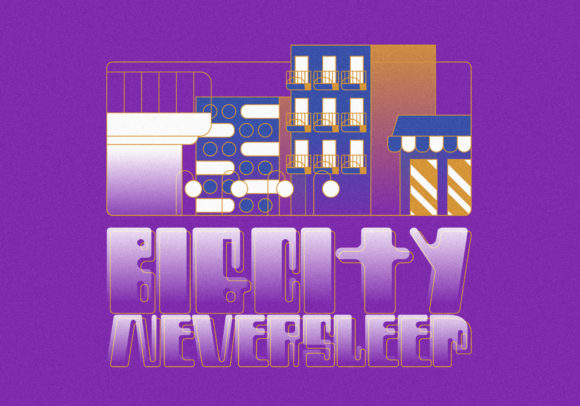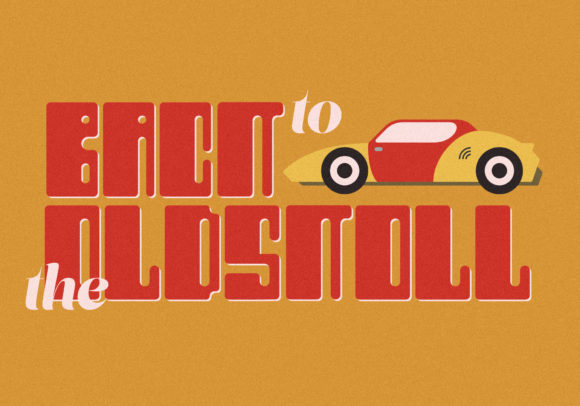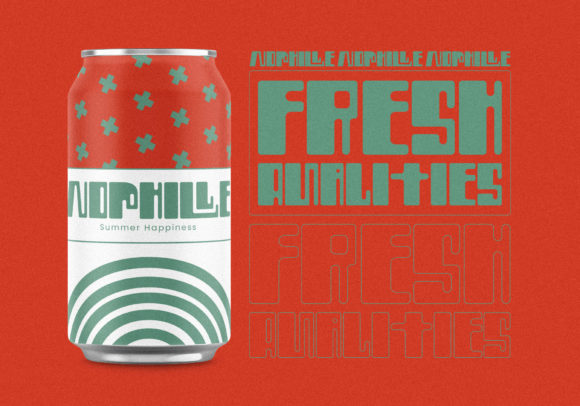
Introduction to Bitto Font
Bitto is a display font that will perfectly suit experimental, retro, and geometrical theme designs.
Bitto will be a good choice for those who want a more unique and fresh look to their crafty projects .